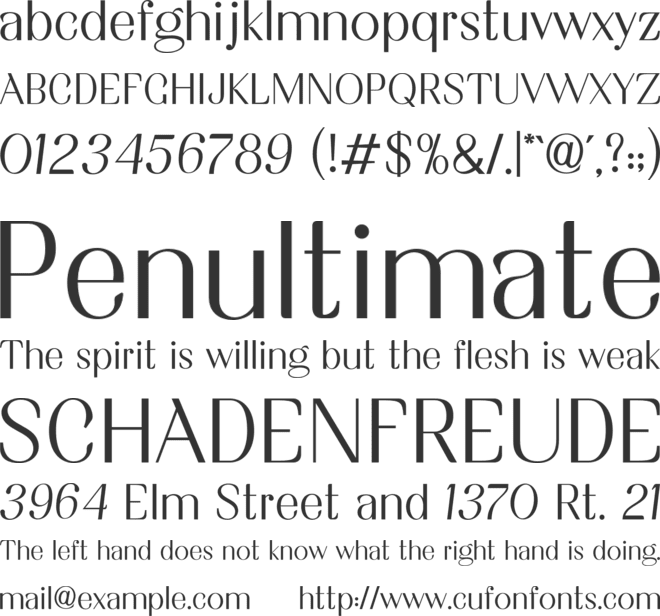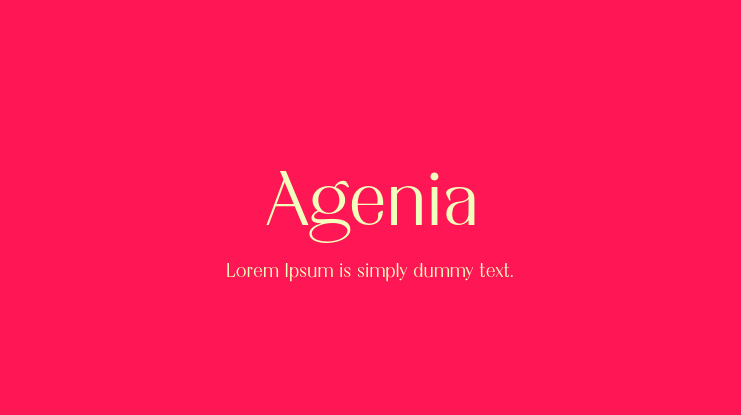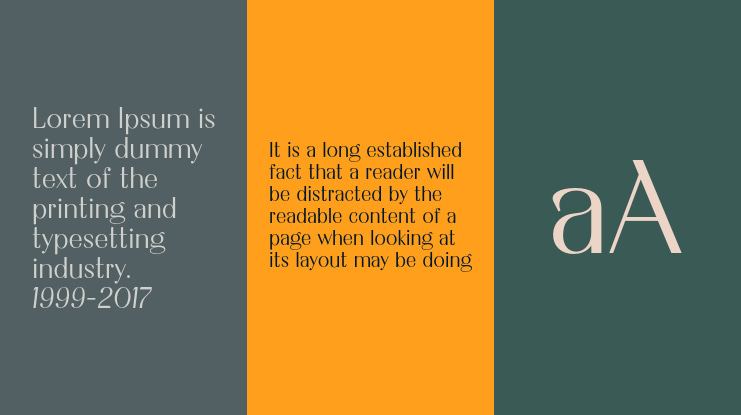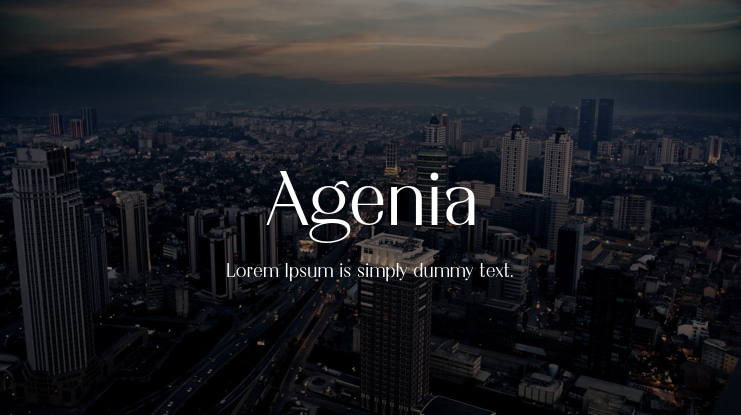
Agenia Font Family
Agenia Font : Elegant, Modern & Expressive” Get the unique and attractive Agenia font! Carefully designed to give an elegant and modern touch to your work. This font is suitable for various purposes such as:
Graphic design
Logos
Brochure
Name card
Website
Social media
Feature
Superiority
Unique and expressive design
Easy to read and understand
Flexible for various applications